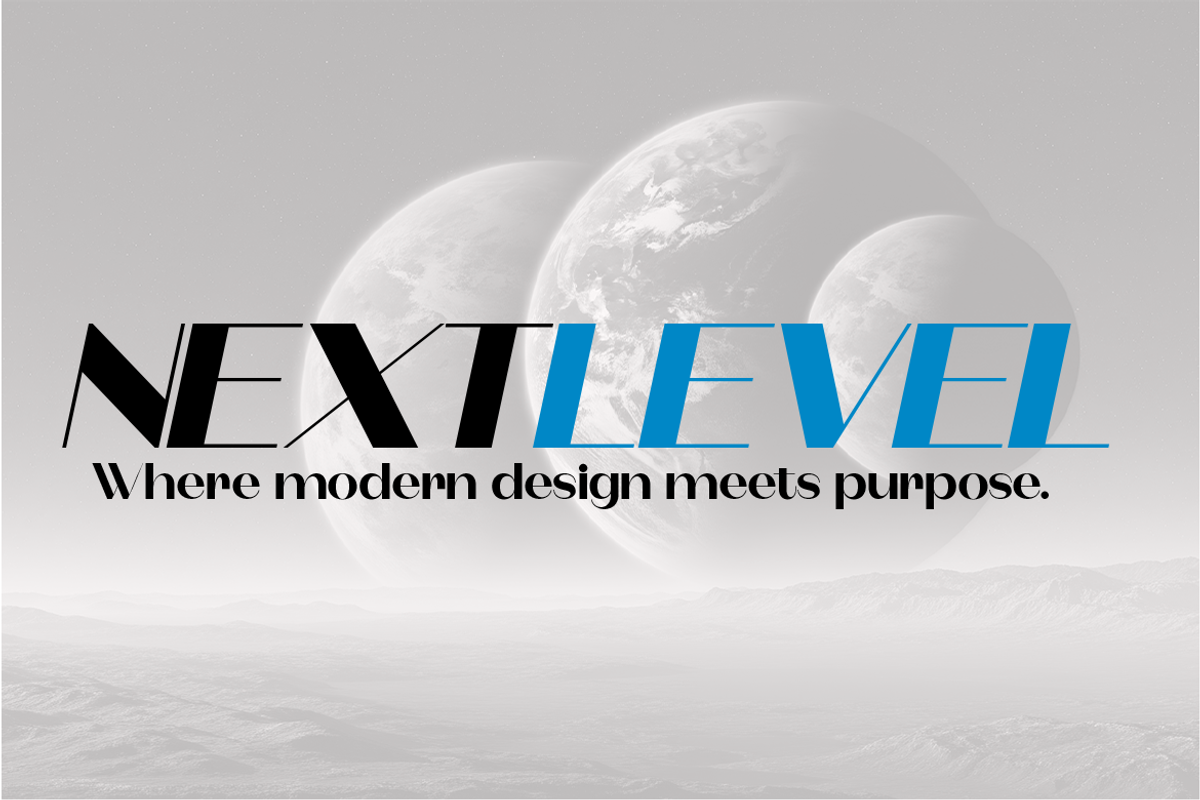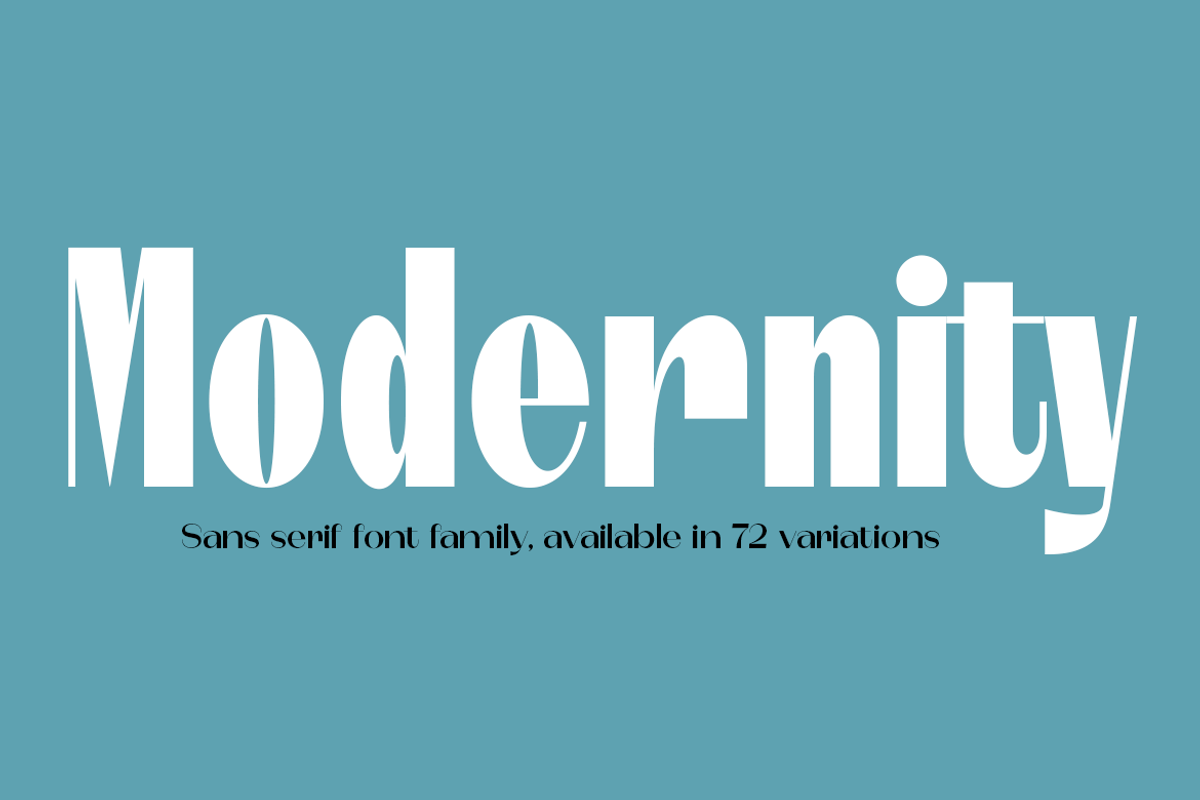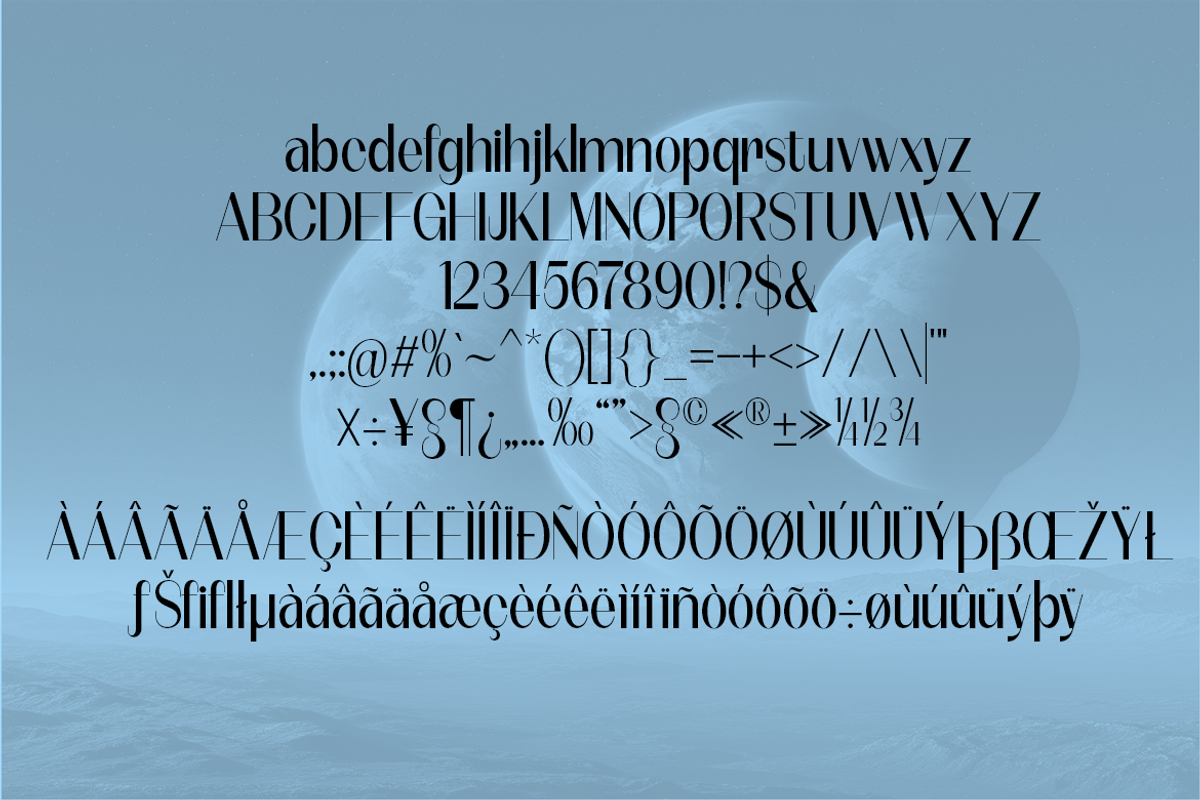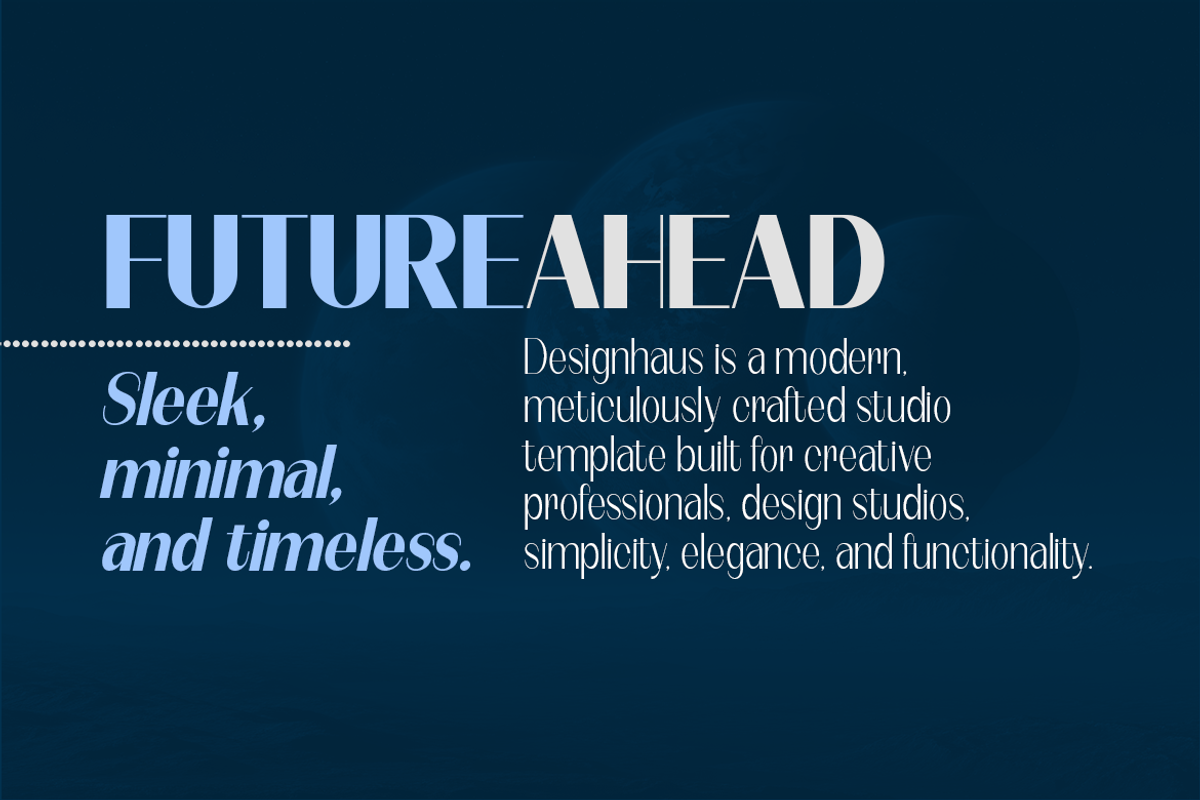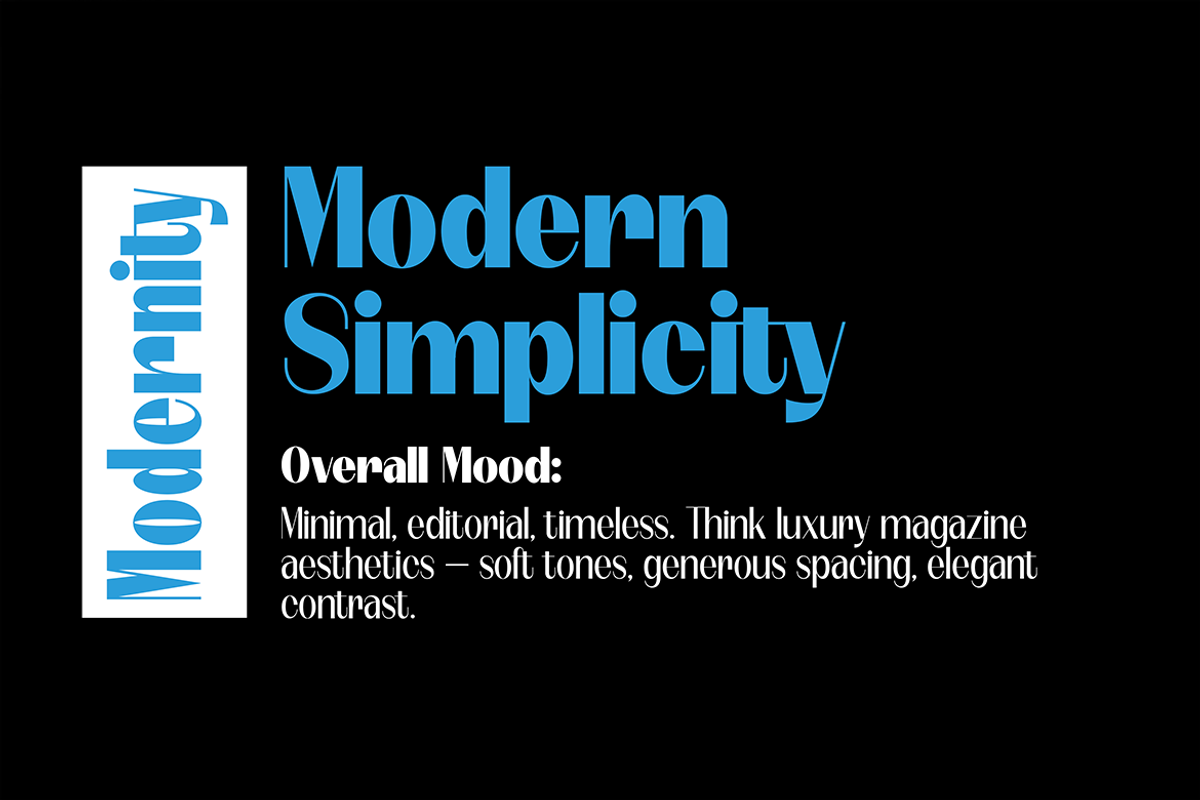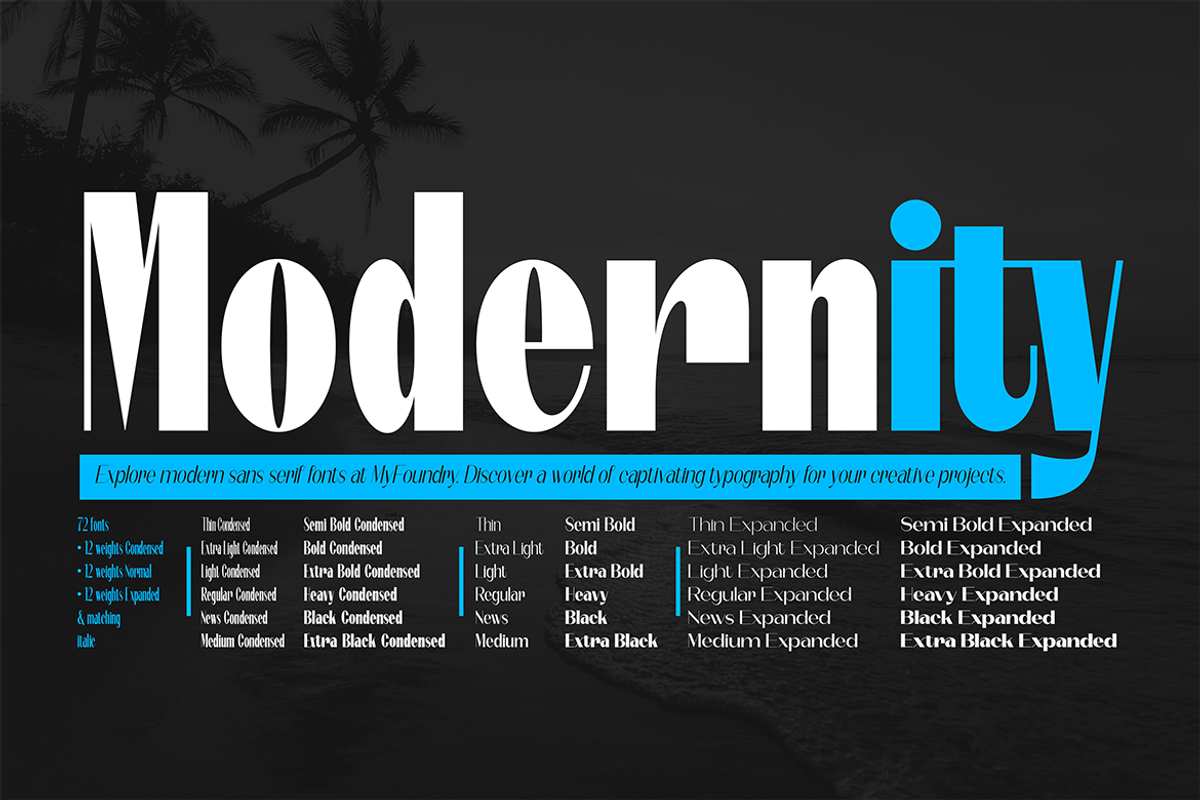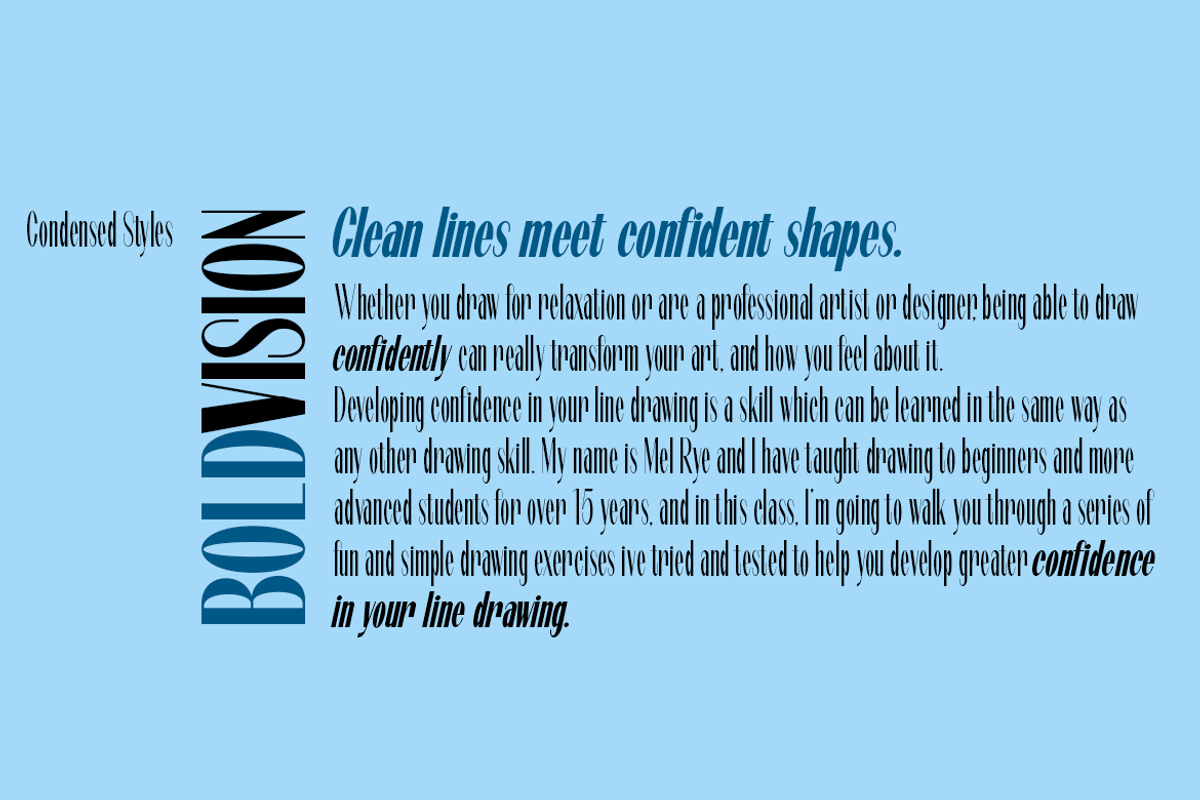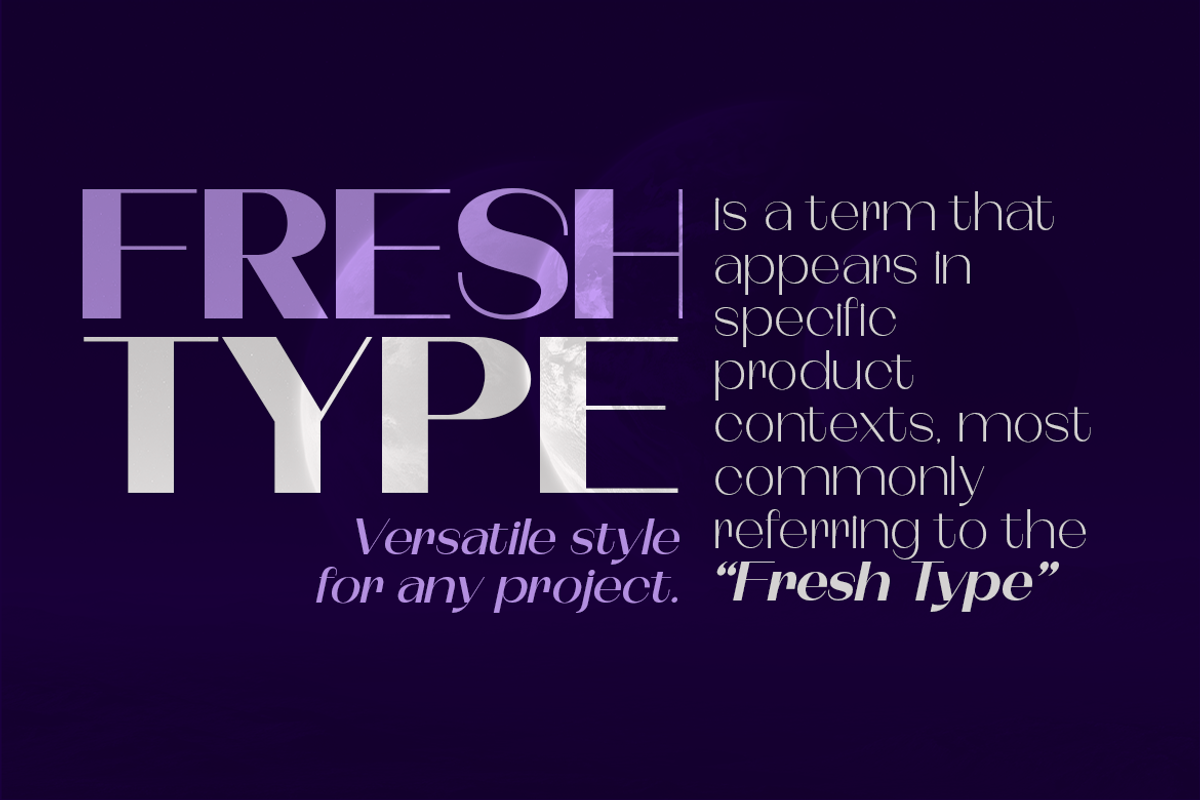
Modernity-A Complete Sans Serif
Modernity—A Complete Sans Serif Universe (72 Fonts Total)
Modernity is a contemporary sans-serif superfamily designed for maximum versatility and modern visual clarity. Built across 3 proportional styles—Condensed, Normal, and Expanded—each with 24 weights from Thin up to Extra Black, this collection gives you a total of 72 fonts crafted for professional, modern design.
Use Condensed for tight layouts and strong headlines, normal for balanced branding and everyday readability, and expanded for bold, spacious titles with a premium feel. Each weight is carefully shaped with smooth geometry and excellent legibility, making Modernity ideal for logos, magazines, posters, packaging, web design, and digital interfaces.
Whether you need elegance, power, minimalism, or impact—**Modernity delivers a complete typographic system that adapts to any creative direction.
- 72 Fonts Total
- 24 Condensed (Thin–Extra Black)
- 24 Normal (Thin–Extra Black)
- 24 Expanded (Thin–Extra Black)
- Full uppercase & lowercase
- Punctuation & symbols